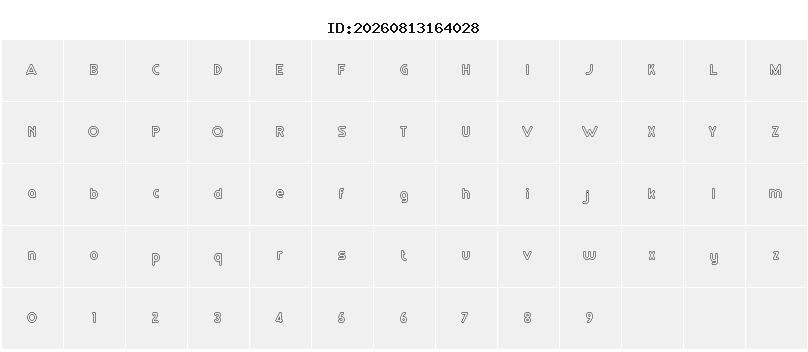
• Font Name: RM Playtime medium
• Designer: Ray Meadows
About RM Playtime medium.ttf
RM Playtime medium.ttf is a modern, elegant sans-serif font designed for ultimate readability and visual harmony. Perfect for branding, headlines, web design, and print materials.